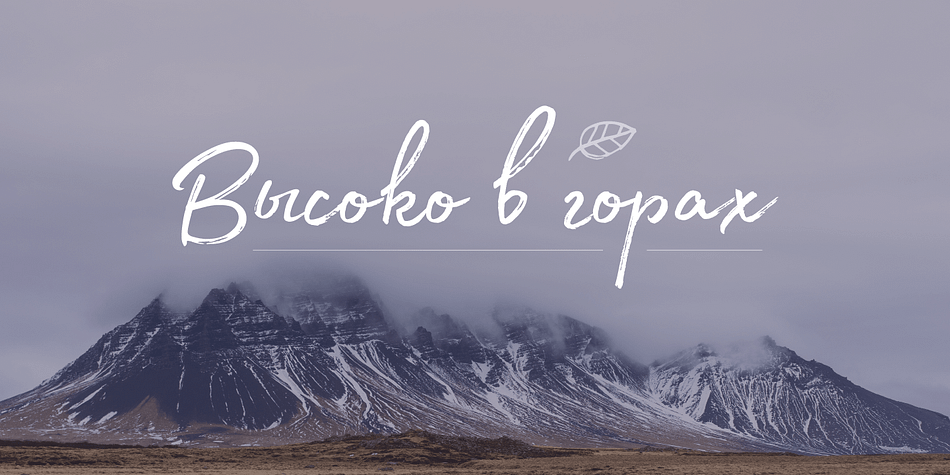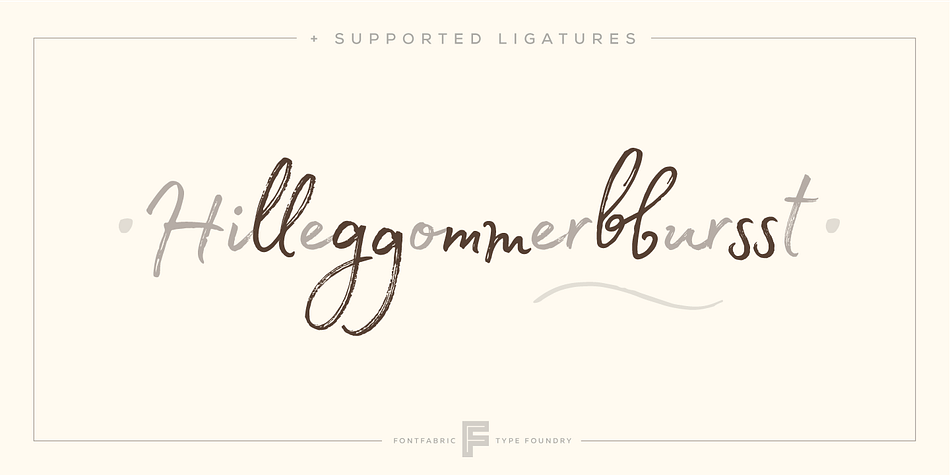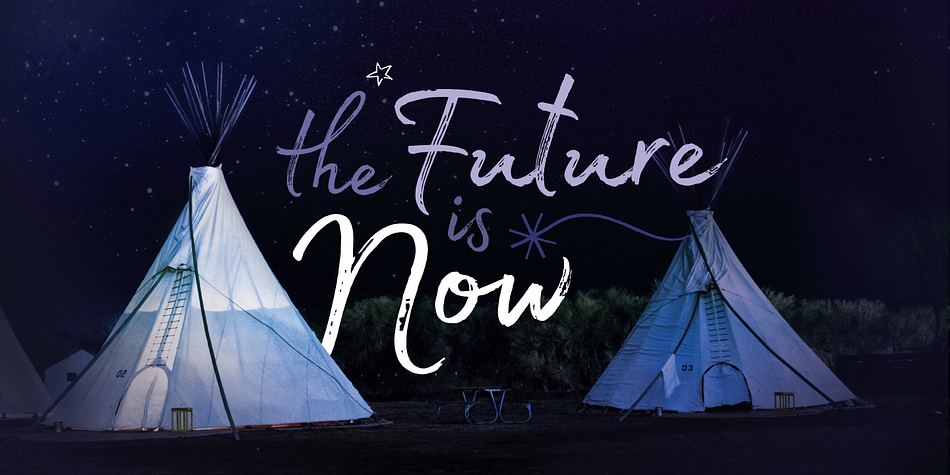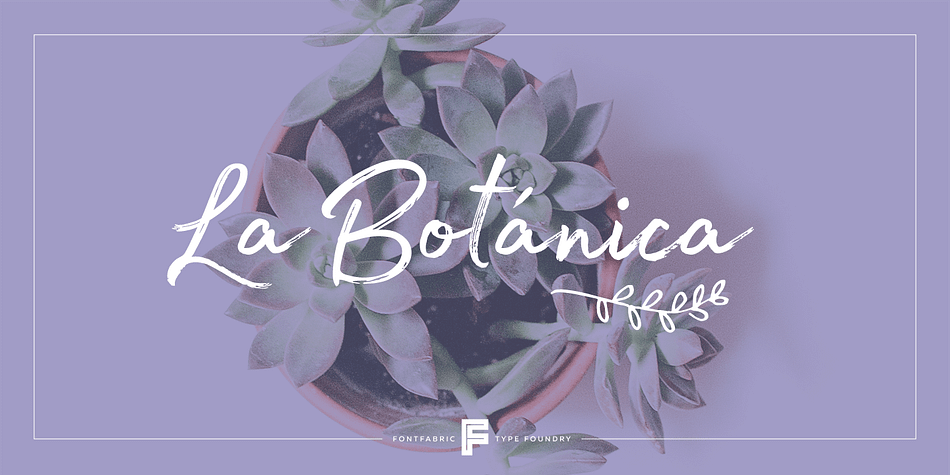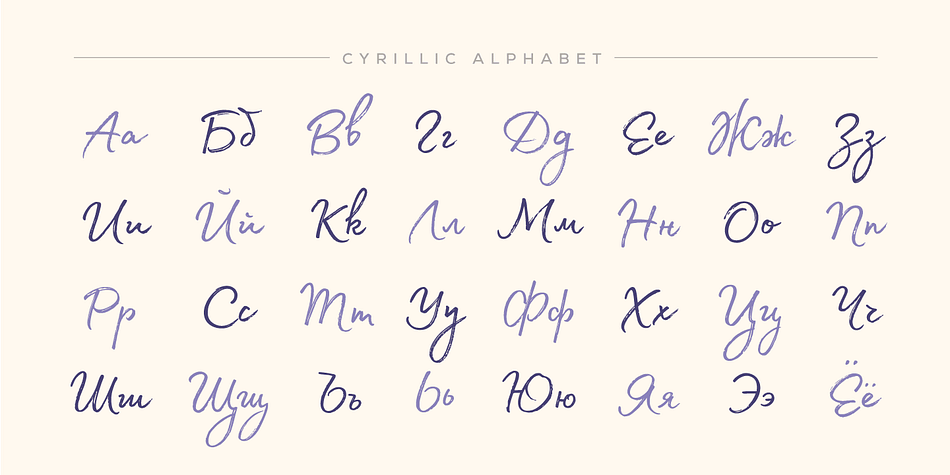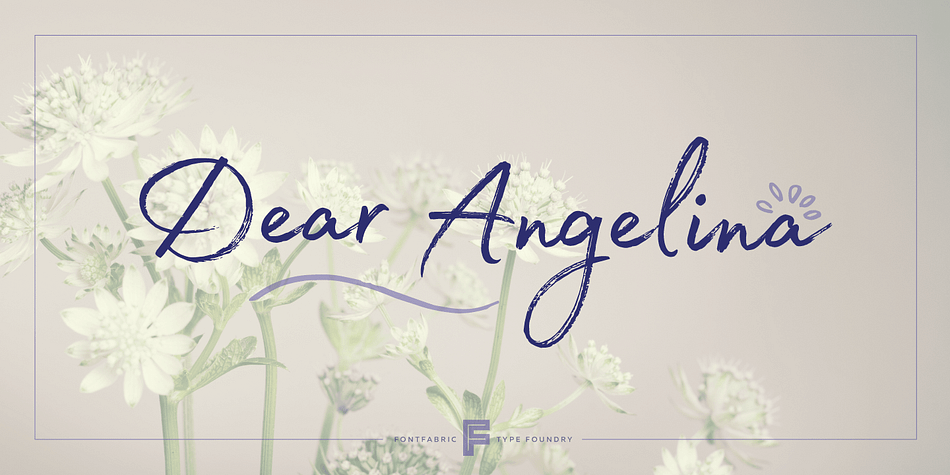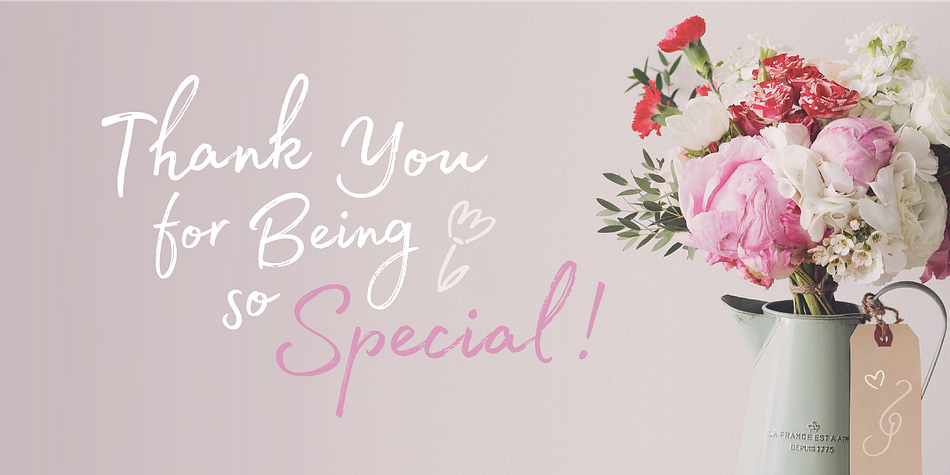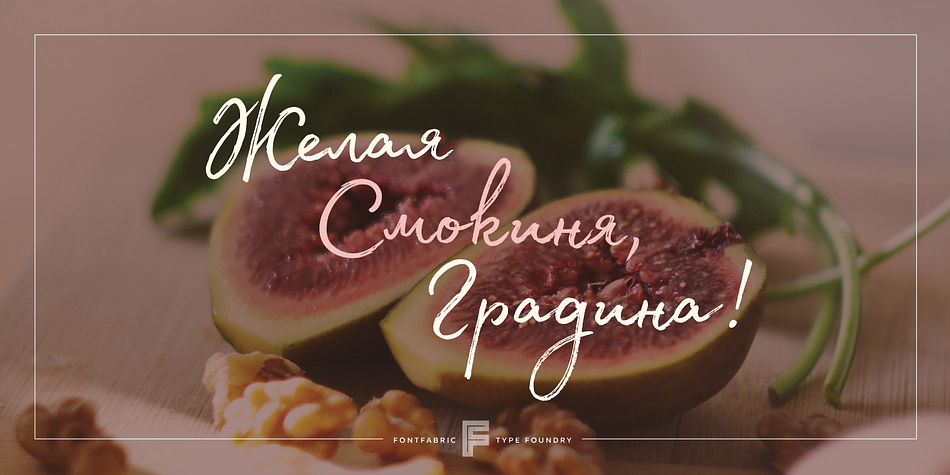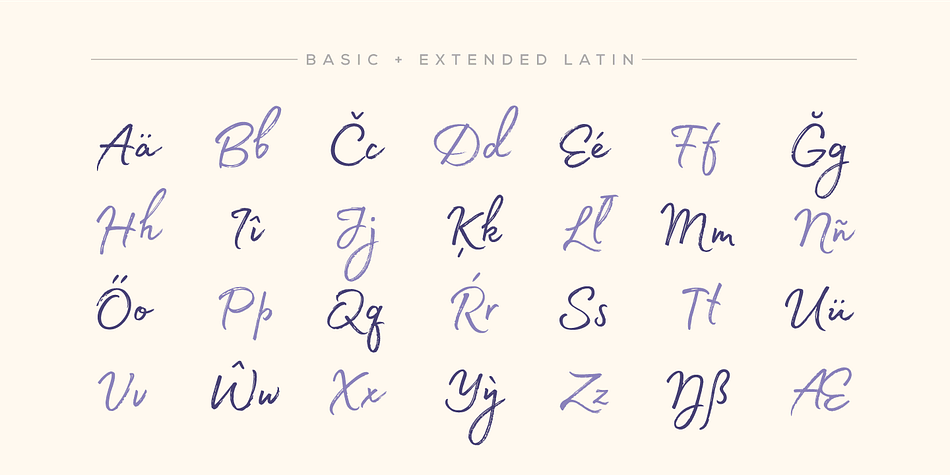
Designed by Jacklina Jekova, Madelyn is a brush script and dingbat font family. This typeface has four styles and was published by Fontfabric.
Madelyn is handwritten script font based on the expression of real handwriting. Amiable and organic, it is perfect if you want to convey individuality and style. It’s written by calligraphy pen with casual dry strokes and a signature style.
A script containing upper and lowercase characters with pleasant low x-height and high ascender and descenders. Also numerals and a large range of punctuation and symbols. More than 100 ligatures are also available for upper and lowercase characters - double-letters which flow more naturally. Contextual alternates are part of the Open Type feature. Madelyn Doodles includes set of handmade ornaments, icons and swashes that can help you for your key visual.
Madelyn is perfect for branding projects, logos, product packaging, posters, invitations, greeting cards, titles, blogs, everything that includes personal charm.
Styles | Brush Script, Dingbat |
Designer | Jacklina Jekova |